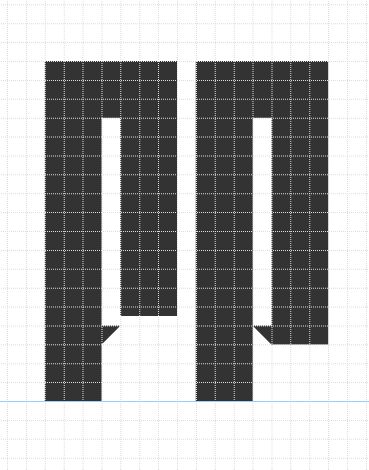
Dooris
Great work!
Very nice condensed font especially like the elongation of the characters. Would be great to see the full font if you have the time.
Super Stylie! The T is always a tough one. Maybe optically make the crossbar narrower? Regardless, love it.
An excellent first font (using FS) 10/10
I wondered whether either of the following alternatives might help the 'T'
I also wondered if the 'F' and 'P' might be confused. One possibility (to help legibility) is to lift the right downstroke of the 'F' by half a brick ( you would need to do the same to C, E, G, S and Z to keep it consistent)
eine seeehr geile schrift übrigens...supergeil